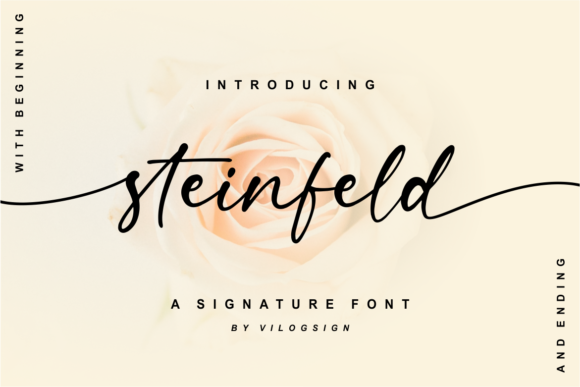
Embrace the allure of Steinfeld Script, a font that captivates with its graceful strokes and impeccable form. Inspired by the enduring beauty of classic calligraphy, Steinfeld exudes elegance and sophistication. Its balanced and varied design ensures harmony in every character, while its moderate thickness adds a touch of modern charm. With Steinfeld, your creative projects will radiate a timeless allure that resonates with audiences.
Step into a world of boundless creativity, where Steinfeld Script ignites your imagination and elevates your designs to new heights. Its innate ability to enhance the beauty of your projects makes it the perfect choice for online posters. Imagine your words dancing across the screen, each letter a work of art, captivating your audience with its refined elegance. Steinfeld breathes life into your messages, transforming them into visually stunning masterpieces.
Unleash your inner artist and let Steinfeld Script guide you on a journey of self-expression. Its versatility knows no bounds, seamlessly adapting to a myriad of creative endeavors. Whether you're crafting breathtaking posters, designing eye-catching logos, or adding a touch of elegance to your social media posts, Steinfeld effortlessly enhances your vision. Experience the joy of creating with a font that understands the language of art and speaks directly to the heart.
Steinfeld Script is more than just a font; it's an experience, an invitation to explore the depths of your creativity and redefine the boundaries of expression. Its timeless charm and contemporary appeal make it the perfect companion for those seeking to make a lasting impression. Discover the magic of Steinfeld today and elevate your designs to extraordinary heights!